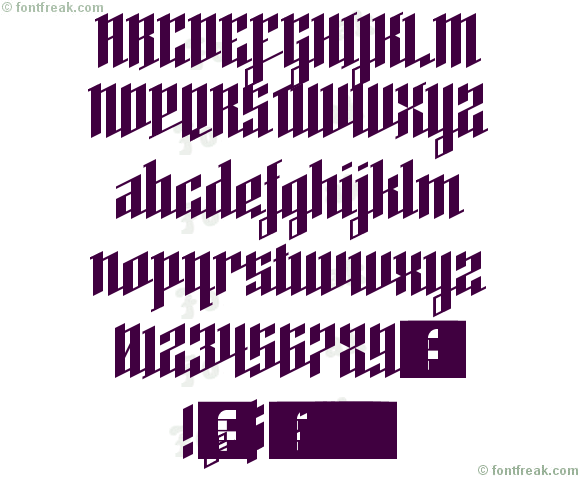
High Voltage Regular
High Voltage Regular is a striking display font designed by Tobias Sommer in 2010, characterized by its bold, high-energy aesthetic. As a decorative typeface, it features a unique blend of sharp angles and dramatic forms that evoke a sense of dynamism and flair. The stroke weight is consistent throughout, offering a solid appearance that makes it stand out in various applications. The spacing is well-balanced, allowing for legibility while maintaining an eye-catching visual impact. This font's distinctive elements, such as its angular serifs and pointed terminals, give it a contemporary edge that sets it apart from more traditional typefaces.
Ideal for a range of creative projects, High Voltage Regular is particularly suited for movie posters, music album covers, and promotional materials for events that require a bold statement. Its energetic style also makes it an excellent choice for branding small businesses in industries like nightlife, fashion, and technology. Graphic designers and content creators will find this font useful for social media graphics, attracting attention with its vibrant character.
What truly sets High Voltage Regular apart is its ability to convey energy and creativity, making it a perfect choice for projects that aim to leave a lasting impression. Its distinctive style not only captures attention but also adds a layer of personality to any design, ensuring that your work stands out in a crowded marketplace.